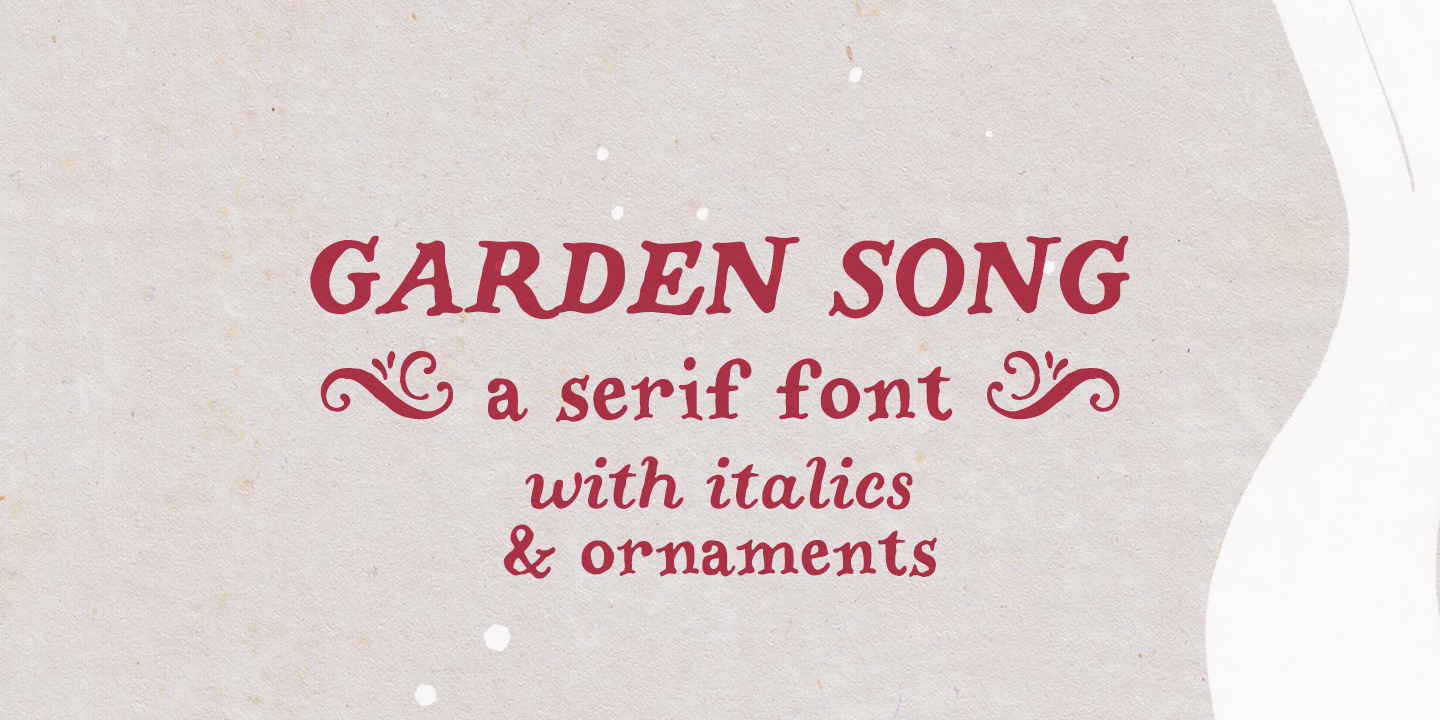
Garden Song Font is perfect for botanical branding projects, flower shop signage, garden center materials, nursery business identity, floral wedding invitations, nature-themed greeting cards, organic farm logos, herbal product packaging, landscape design presentations, and spring festival promotions.
What makes Garden Song Font so exciting is its whimsical charm that captures the joy and beauty of blooming gardens and natural growth. This typeface features playful letterforms with organic curves and delicate flourishes that evoke the graceful movement of flowers swaying in a gentle breeze. The font's cheerful and harmonious character communicates freshness and vitality, making it perfect for brands seeking to convey natural beauty, growth, and the uplifting spirit of flourishing gardens.
Garden Song Font family includes Regular, Bold, Light, and Script variants, along with decorative floral elements and botanical ornaments. The family also features special character sets including flower symbols, leaf motifs, and garden-themed decorative borders that enhance the font's connection to botanical and floral themes.
Garden Song Font supports comprehensive character sets including Latin alphabets, numbers, punctuation marks, and special botanical symbols. The font's carefully balanced spacing reflects natural harmony while ensuring excellent readability across all applications. Its OpenType features include contextual alternates, floral ligatures, and decorative garden elements that expand creative possibilities for botanical design projects.
Professional designers choose Garden Song Font for projects requiring authentic botanical appeal and natural charm. The font excels in applications where organic aesthetics and cheerful character are essential, offering the perfect solution for brands seeking to communicate growth, natural beauty, and the joy of gardening. Its garden-inspired appearance makes it ideal for florists, garden centers, and nature-focused lifestyle brands.